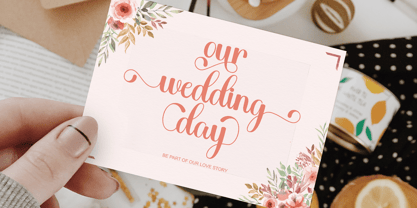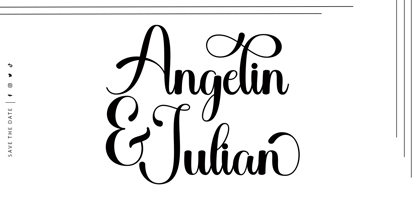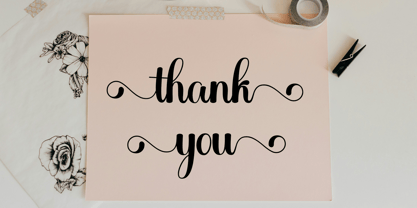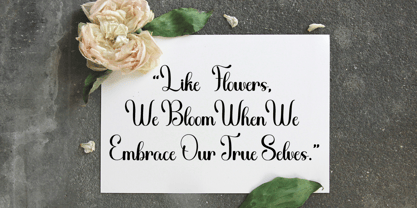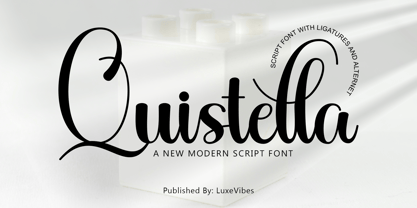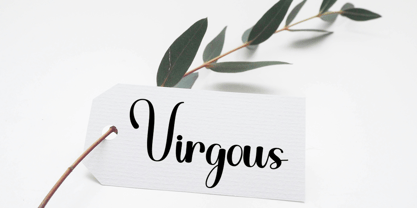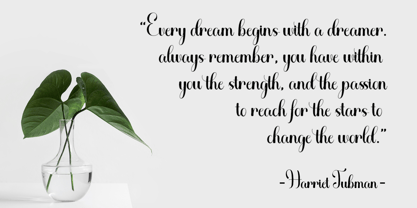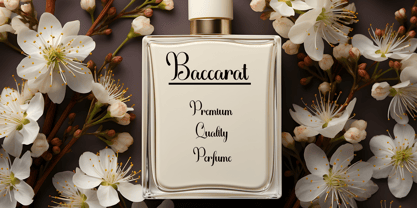
Quistella
by Luxe Vibes
The Quistella Font Family was designed by and published by Luxe Vibes. Quistella contains 1 styles. More about this family
Quistella is a script font that combines classic elegance with a modern twist. The design features subtle curves and flowing curves, providing an elegant yet dynamic feel. Each letter has a luxurious character, while remaining easy to read, thanks to balanced proportions and carefully designed details.
Quistella is suitable for various types of design work, from wedding invitations, luxury branding, to graphic design projects that require a more personal and artistic touch. This font comes in a variety of styles, allowing flexibility in its application, from a subtle and soft look to dramatic emphasis on important words.
With a flowing yet firm character, Quistella gives an elegant and sophisticated impression, making it the perfect choice for designers who want to add an exclusive feel to their work.